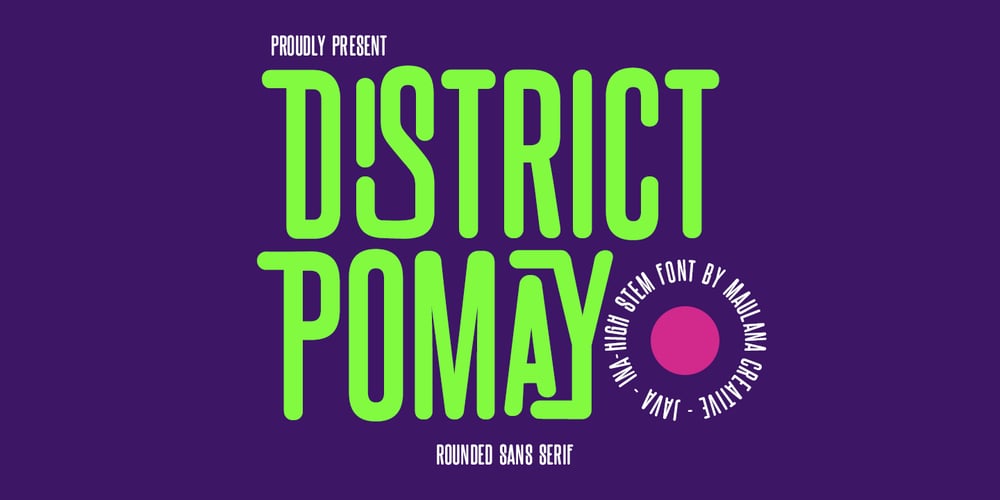
MC District Pomay Font Family was designed by Gilang Maulana and published by Maulana Creative. MC District Pomay contains 1 styles and family package options. District Pomay is a fancy rounded modern sans serif font. With bold tall and rounded stroke, fun character with a bit of ligatures and alternates. To give you an extra creative work. District Pomay font support multilingual more than 100+ language. This font is good for logo design, Social media, Movie Titles, Books Titles, a short text even a long text letter and good for your secondary text font with sans or serif. Make a stunning work with District Pomay.